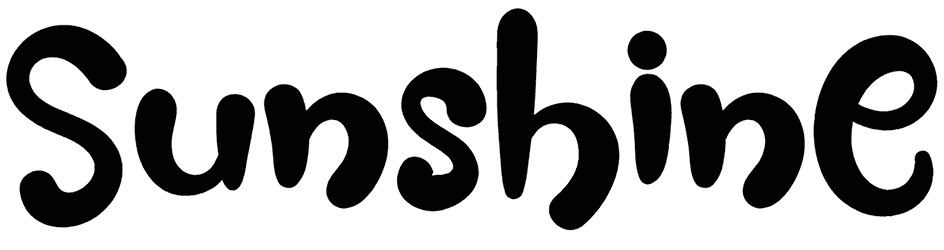
Sunshine Font
In order to make your font seem humorous to your intended readers, you should use the fancy, cartoon font Sunshine, which has a curly style. Its upbeat visual presentation can be used to give your digital works a more lively atmosphere.
This is useful for everything from advertisements and flyers to apparel. This summer font is worth the download if you’re up for a challenging project and want to make a good impression on your client.
Sunshine is a cool looking and friendly display font. Whether you are using it for cartoon-related designs, children’s games, quotes, titles, brand names, book covers, posters, or just any creation that requires a touch of beauty, this font is a great choice.